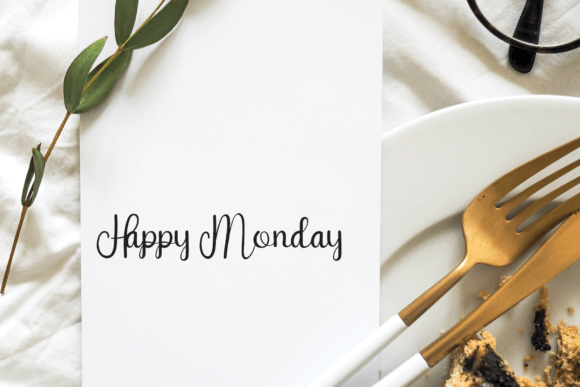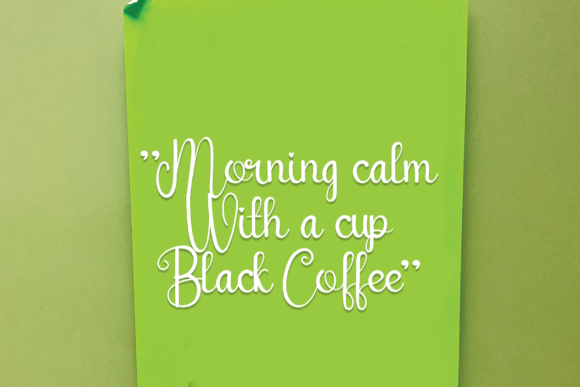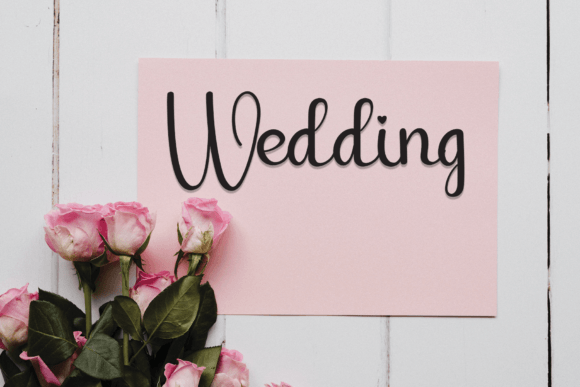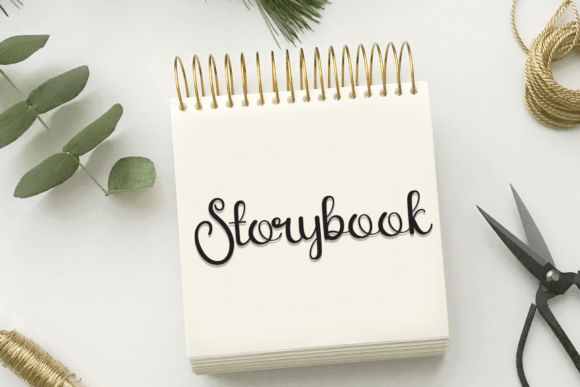
Sublimation Font
About Sublimation Font
The Sublimation Font Download is a sweet and smooth handwritten typeface that adds charm, playfulness, and elegance to your projects. Its natural flow and well-balanced strokes give every design a warm, romantic touch while maintaining clean readability. If you’re working on wedding invitations, greeting cards, or creative branding projects, Sublimation Font will help your ideas shine with a personal and heartfelt style.
Unlike standard fonts that often appear too stiff, Sublimation Font captures the essence of authentic handwriting. This unique quality makes it an excellent choice for both professional and personal designs. Whether you want to create stylish event stationery or eye-catching social media graphics, this handwritten script adapts beautifully to different themes.
Key Features of Sublimation Font
When you choose the Sublimation Font Download, you get more than just a pretty typeface. It includes features that make it versatile and designer-friendly:
• A smooth, playful handwritten script with natural flow
• Uppercase and lowercase letters designed with balance
• Punctuation, numbers, and multilingual support
• Perfect kerning for professional results
• Suitable for both print and digital projects
These features ensure Sublimation Font remains reliable and flexible, whether you are a professional designer or a creative hobbyist.
Best Uses for Sublimation Font
This font was designed with versatility in mind. Here are some of the most popular uses for Sublimation Font:
• Wedding Invitations – Its romantic handwritten style makes it perfect for elegant stationery.
• Greeting Cards – Adds warmth and personality to birthday, anniversary, or holiday cards.
• Branding & Logos – Great for boutique businesses, fashion labels, or creative brands.
• Social Media Posts – Eye-catching text overlays for Instagram, Pinterest, or Facebook.
• DIY & Crafts – Ideal for T-shirt quotes, mugs, tote bags, or scrapbooking.
• Event Posters & Flyers – Playful yet professional, perfect for promotional materials.
No matter the project, Sublimation Font adds personality and makes designs feel special.
Why Choose Sublimation Font?
The Sublimation Font Download is more than just another script—it’s a creative tool that balances sweetness and professionalism. Its smooth letters bring elegance to wedding stationery, while its playful style makes it fun for casual projects. Because of its careful design, Sublimation Font maintains excellent readability across both small and large text, ensuring it always looks polished.
Designers love its adaptability. Whether used as a main headline or subtle decorative text, it enhances projects with charm and authenticity.